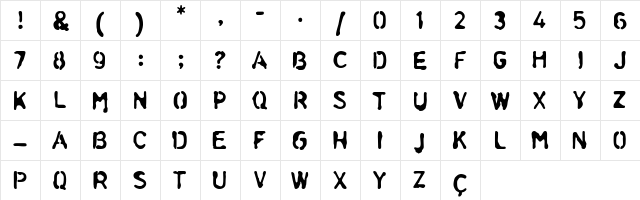
| Foundry | NowType |
| Designer | Claudio Rocha |
Design Context for Liquid Stencil Typeface
Liquid Stencil has the rough pragmatism of spray-painted stencil signage, adding a raw, street-level authenticity to designs.
Ideal for industrial branding, streetwear, military-adjacent aesthetics, and urban signage projects.
Pro Tip: Pair Liquid Stencil with raw, utilitarian design elements — exposed concrete textures, flat colour, and minimal ornamentation suit it well.